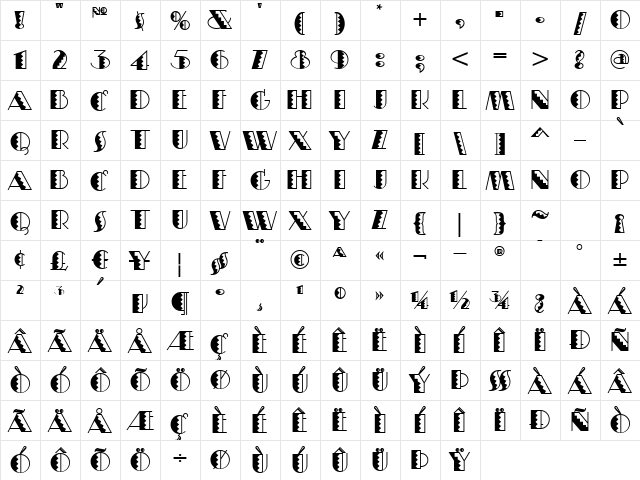
BessieMaeMoochoNF Regular Font Preview
BessieMaeMoochoNF Regular
Design Context for BessieMaeMoochoNF Typeface
BessieMaeMoochoNF is a composed and adaptable typeface that performs quietly and consistently across a wide range of design contexts.